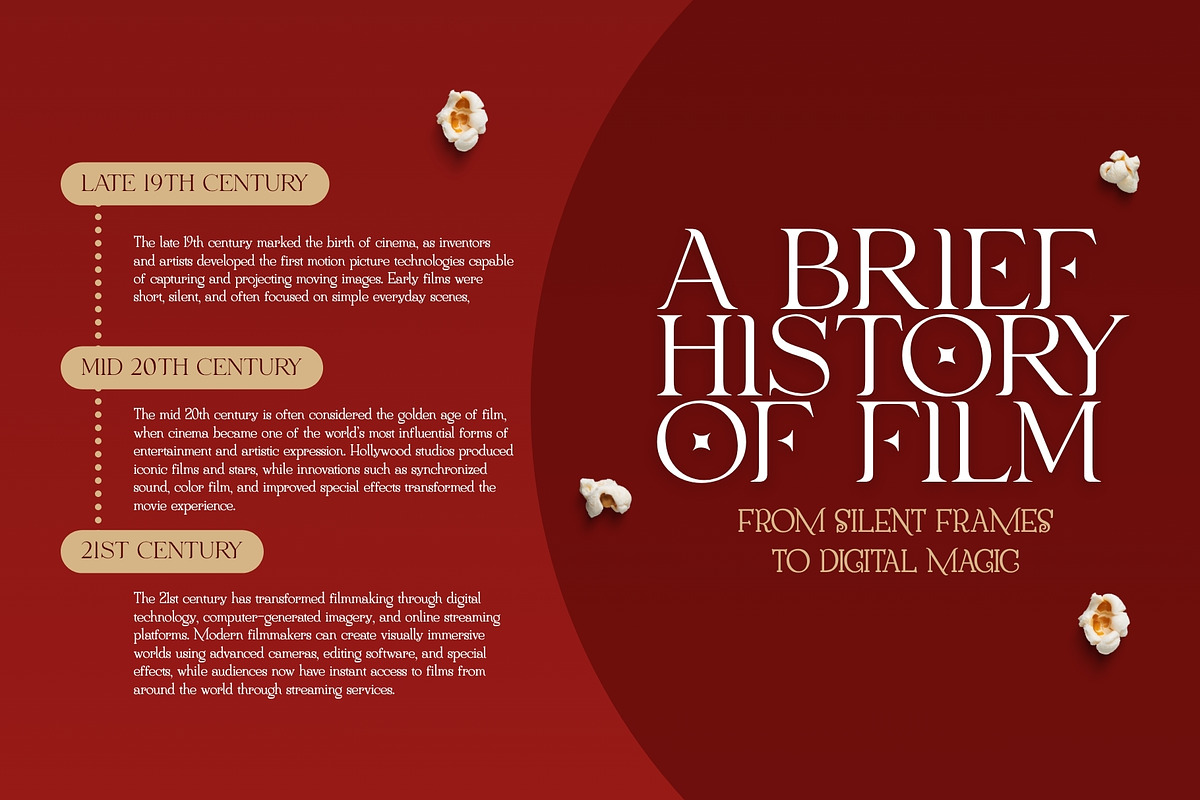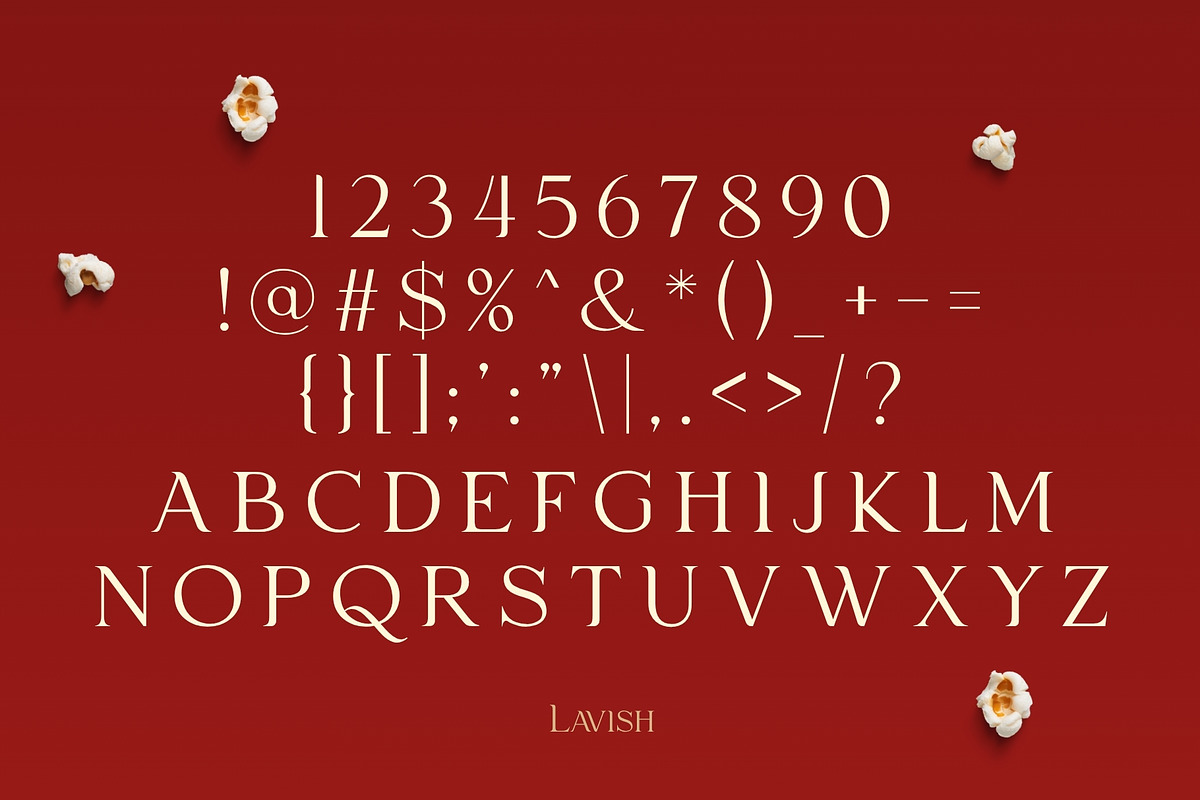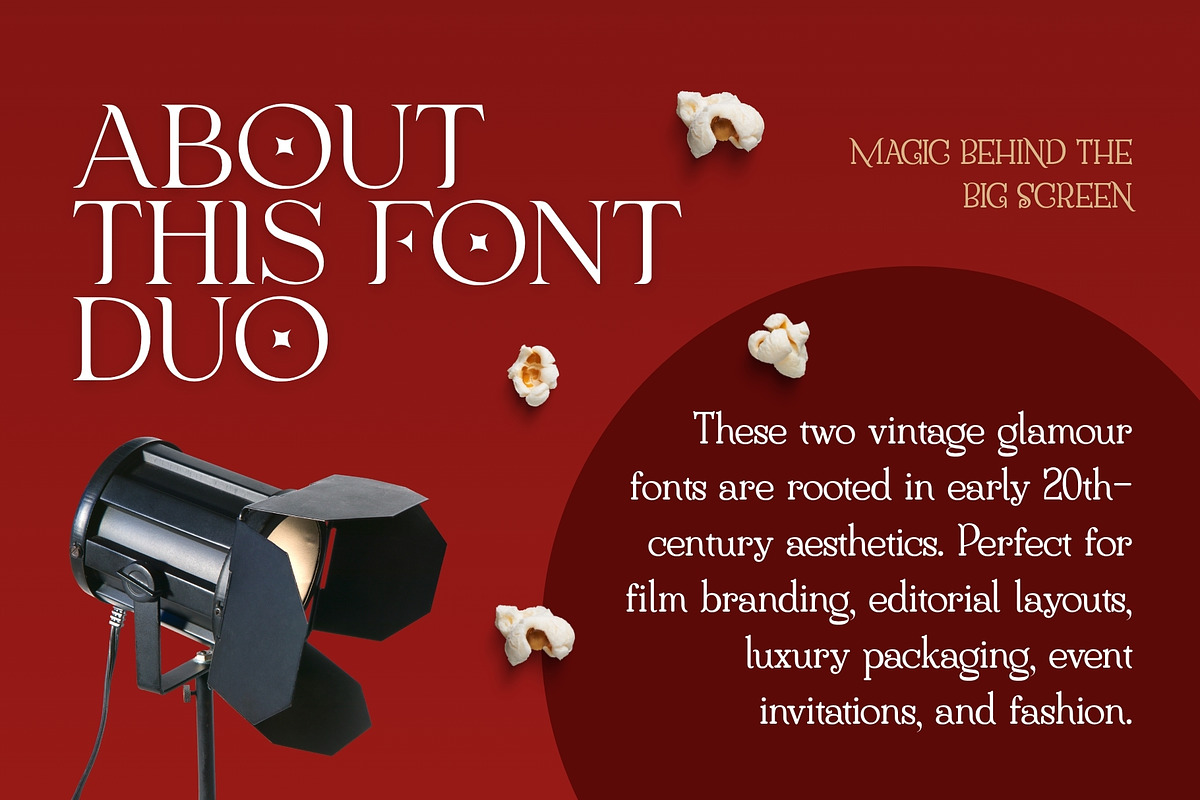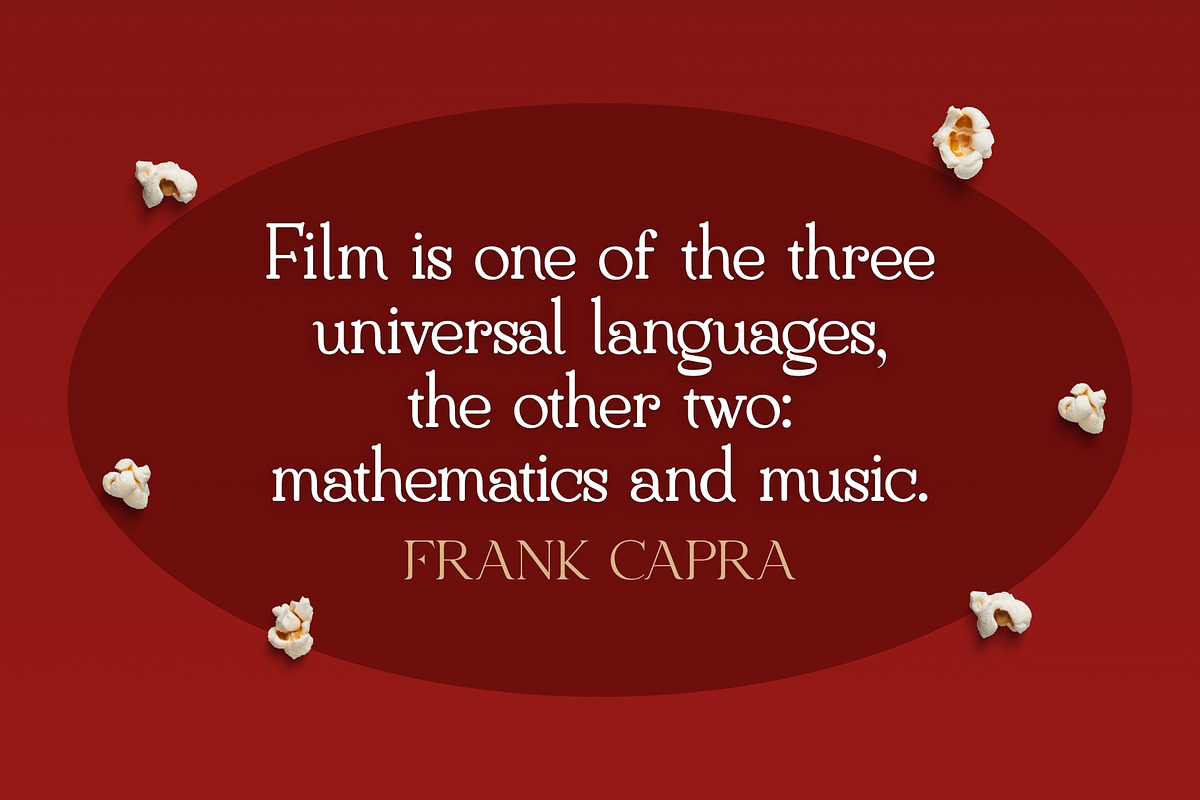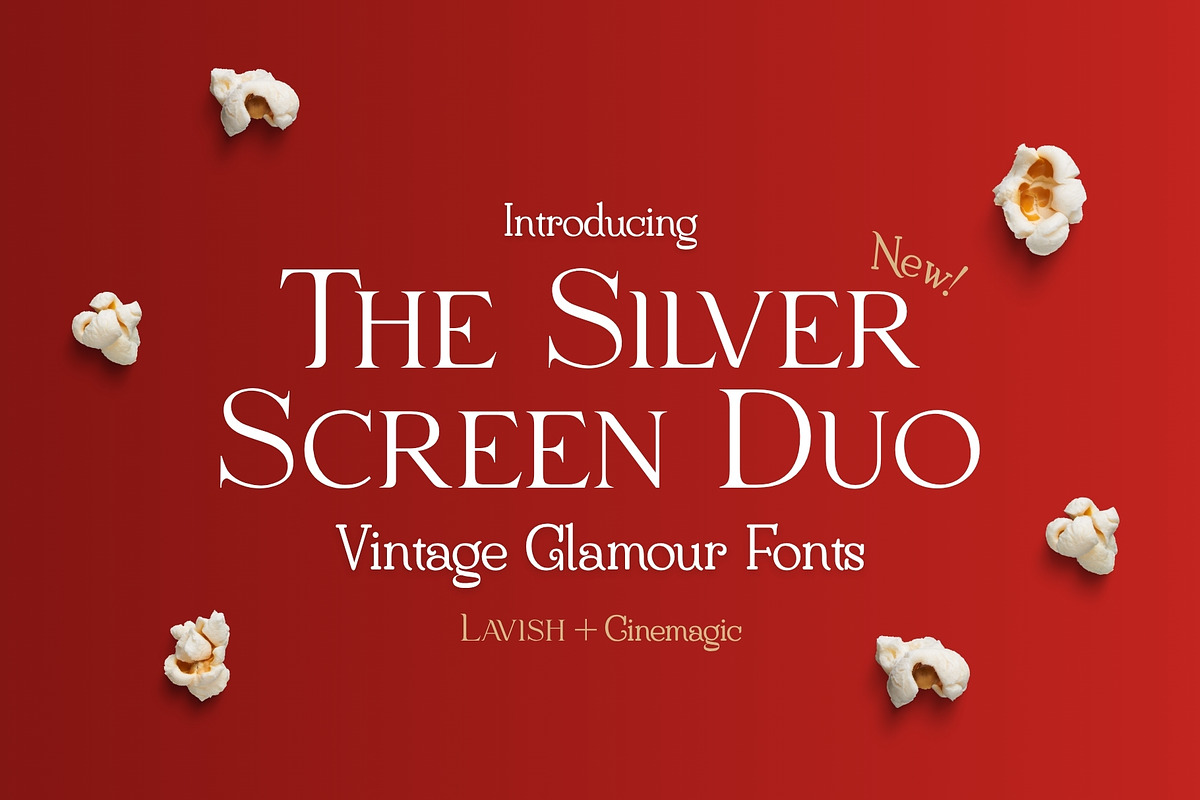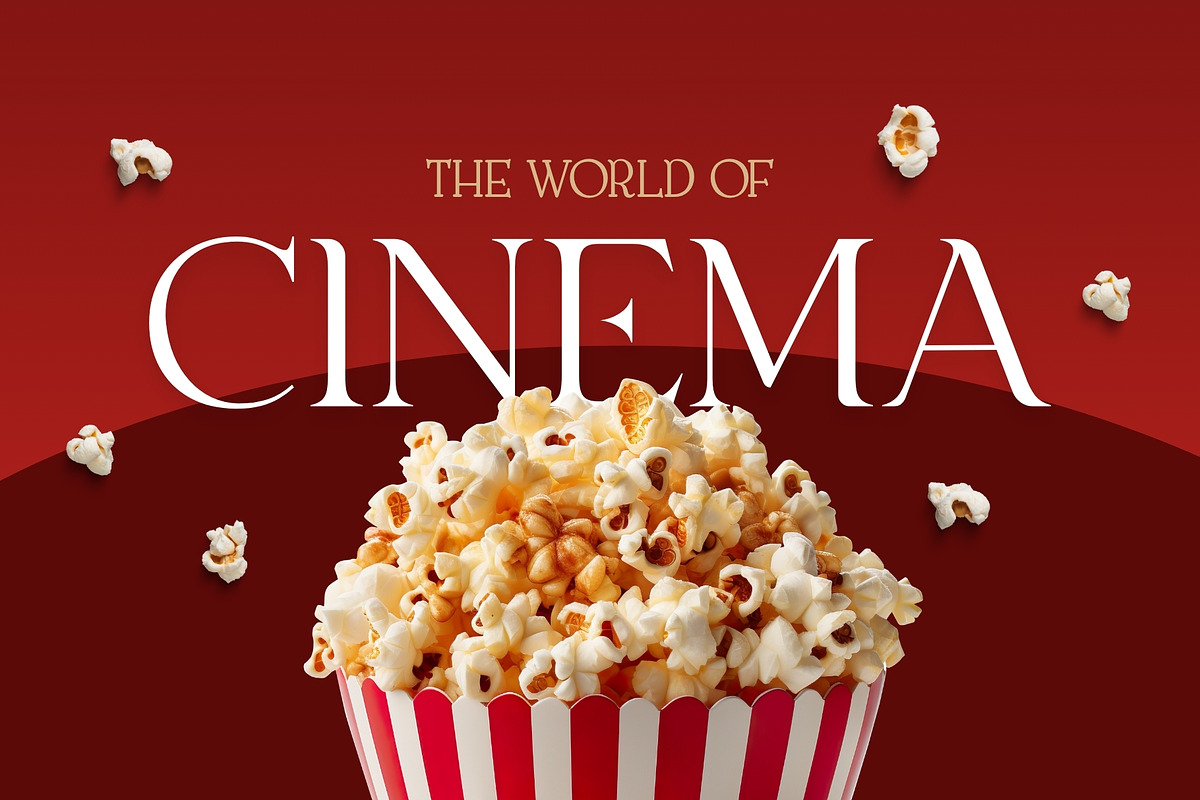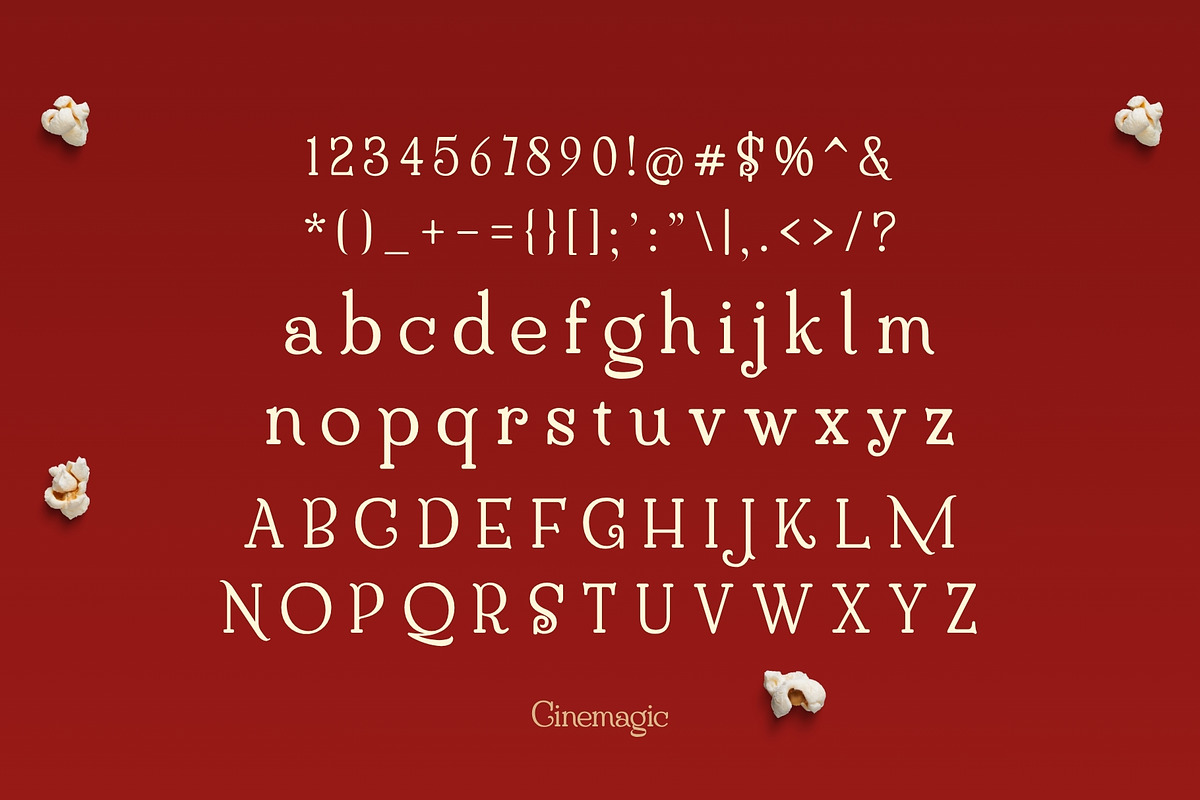
The Silver Screen Duo
Step into the golden age of glamour with The Silver Screen Duo, a sophisticated font pairing inspired by the elegance of classic cinema, Art Deco architecture, vintage Hollywood, and timeless high-fashion editorials. This refined duo combines a striking Art Deco cinema serif with an elegant fashion-inspired serif, creating the perfect balance between dramatic vintage charm and luxurious modern sophistication.
Rooted in early 20th-century aesthetics, both typefaces feature graceful curves, stylish proportions, and refined details that evoke the atmosphere of old movie theaters, jazz lounges, luxury magazines, and red carpet premieres. The Art Deco serif delivers bold cinematic presence, while the fashion serif adds softness, elegance, and editorial beauty.
Perfect for film branding, movie posters, editorial layouts, luxury packaging, wedding invitations, fashion campaigns, cosmetics branding, boutique logos, social media, book covers, and upscale creative projects.
Whether you're designing with roaring twenties elegance or timeless Hollywood glamour, The Silver Screen Duo brings sophistication, drama, and vintage luxury to every composition.